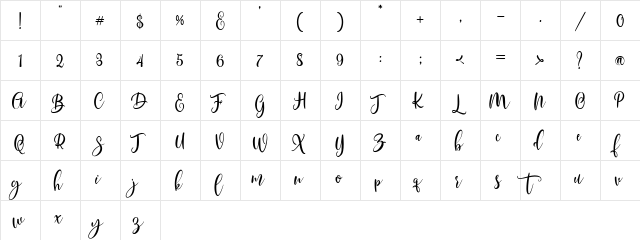
Scoothlane Script Demo Version Regular Font Preview
Scoothlane Script Demo Version Regular
Scoothlane Script Demo Version Regular Font Details
| Foundry | Mercurial |
| Designer | Salt |
Design Context for Scoothlane Script Demo Version Typeface
Scoothlane Script Demo Version flows with the natural rhythm of handwritten lettering, making it ideal for designs that call for warmth and personal expression.
Font Pairing: Combine Scoothlane Script Demo Version with a simple geometric sans for maximum contrast — the tension between flowing curves and clean structure is a classic typographic pairing.
Pro Tip: Pair Scoothlane Script Demo Version with a clean sans-serif for supporting text. The contrast between fluid script and geometric structure creates an elegant typographic hierarchy.